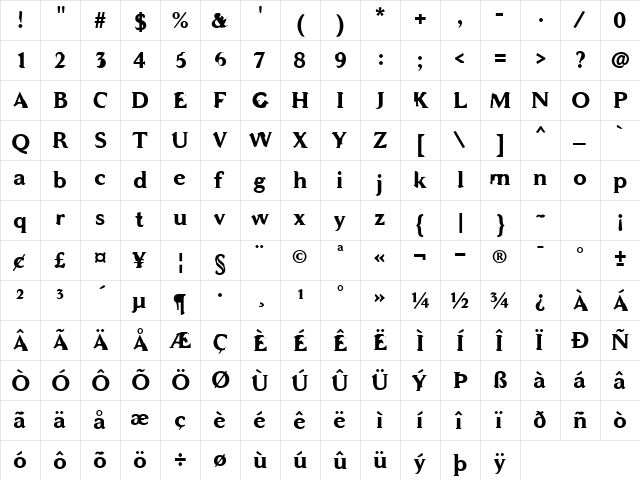
WC ADDENDUM Bta Bold Regular
Design Context for WC ADDENDUM Bta Bold Typeface
WC ADDENDUM Bta Bold offers clean, dependable letterforms without strong stylistic allegiance, making it a practical choice for designers who need flexibility. The heavy weight commands attention and anchors typographic hierarchies.